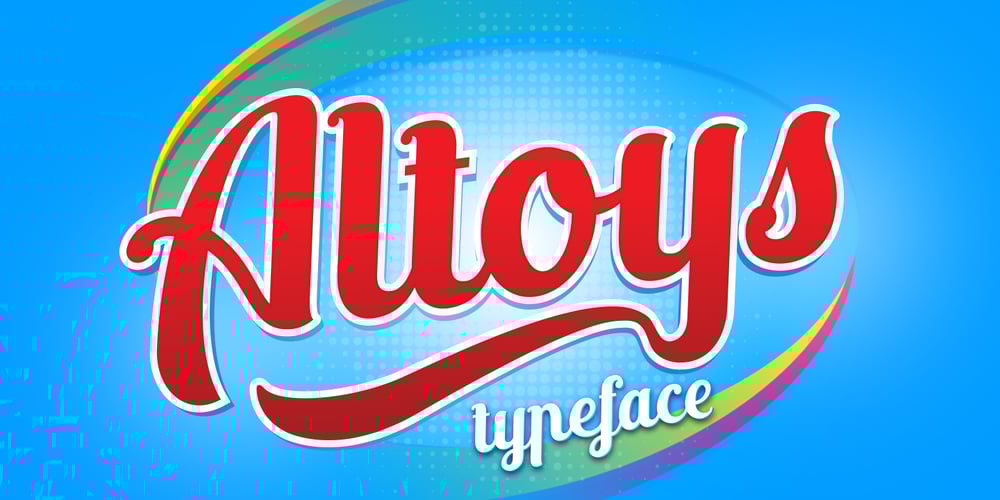
Altoys Font Family was designed by Alit Suarnegara and published by Alit Design. Altoys contains 3 styles and family package options. video tutorial: Altoys typeface on the Adobe Illustrator Yihaiii… Altoys Typeface make your font collection to be more varied, because Altoys has special characters glyphs, gorgeous and curvaceous which makes this font suitable for a your brand name. Very clearly visible from a distance. Product Content : – Altoys (OTF & TTF Format) – Altoys italic (OTF & TTF Format) – brushgyo Character.pdf Features : – Character uppercase and lowercase – Numerals & Punctuations (OpenType Standard) – Accents (Multilingual characters) – swash, stylistic alternates, contextual alternates, ligature, discretionary ligature, ornament, ss01 – ss02 Thank you and enjoy 🙂 www.alitdesign.net